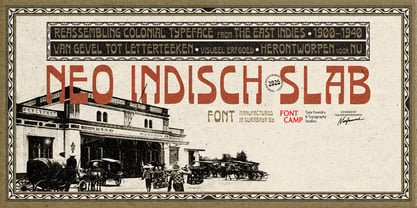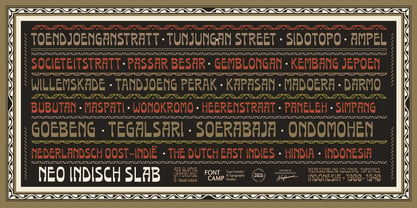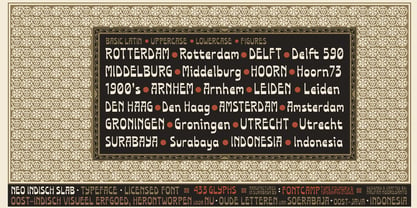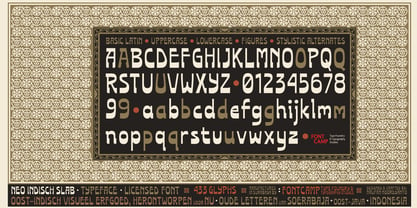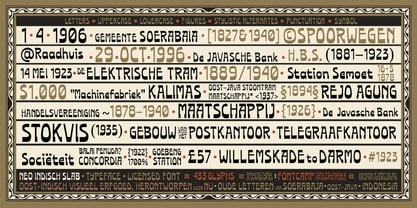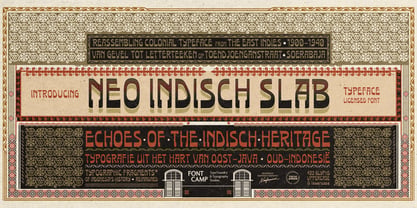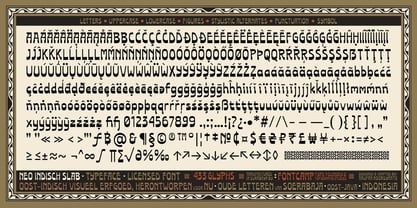
Neo Indisch Slab
The Neo Indisch Slab Font Family was designed by Naufan Noordyanto and published by Fontcamp. Neo Indisch Slab contains 1 styles. More about this family
Introducing a "NEO INDISCH SLAB" Font. DESCRIPTION: Neo Indisch Slab: Eene nieuwe stem voor de oude letteren van Soerabaja, Oost Java. "Neo Indisch Slab" is a slab-accented display sans-serif that reimagines Surabaya’s colonial-era lettering (1900–1940) through the lens of bricolage. In this design context, bricolage is a creative process of recombining visual fragments sourced from archival colonial typography to construct a new letter system with contemporary functional meaning. Inspired by typographic remnants from Surabaya’s city center, Indonesia (1900's)—specifically the ANIEM Building, Toko NAM, Toko Piet, and the Loe Tiong Yan storefront—this typeface geometrical structures with the blocky terminals characteristic of Indisch (Dutch colonial-era) sign painting. The letterforms feature low-to-medium contrast, squarish proportions, floating diagonals in the ‘M’ and ‘W’, and decorative flare terminals that create a distinctive visual rhythm. Designed as an homage to the Dutch East Indies typographic landscape, Neo-Indish Slab offers a modernized historical aesthetic suitable for contemporary branding, editorial design, and visual identities. METADATA: Font Name: Neo Indisch Slab Regular; Style: Regular; Version: 433 glyphs, supporting 85 languages (including diacritics); Uppercase and lowercase! Version1.000 (manufactured on Dec 2025), released on January 2026. CREDIT: Designer: Naufan Noordyanto; Kerning: Naufan Noordyanto; Manufacturer: Fontcamp Type Foundry and Typography Studies. We craft and distribute fonts and custom typography. We foster typographic appreciation through design exhibitions, publications, and education. Fontcamp Type Foundry - Crafted in Indonesia. Tag or mention us on Instagram @itsfontcamp and @naufannoord — we’d love to see how you use Neo Indisch Slab font!